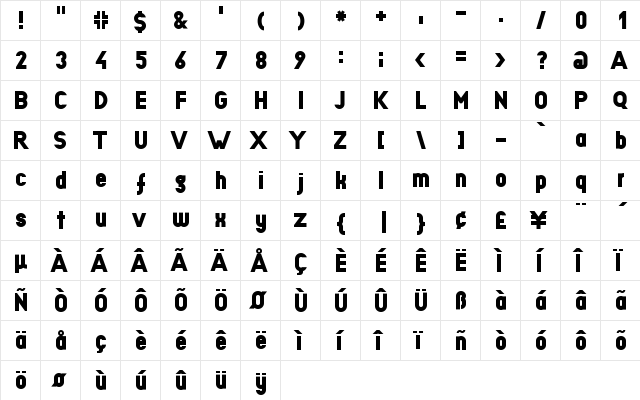
EPF UULB
| Foundry | YOFonts |
| Designer | Yamaoka Yasuhiro |
Design Context for EPF Typeface
EPF is a composed and adaptable typeface that performs quietly and consistently across a wide range of design contexts.